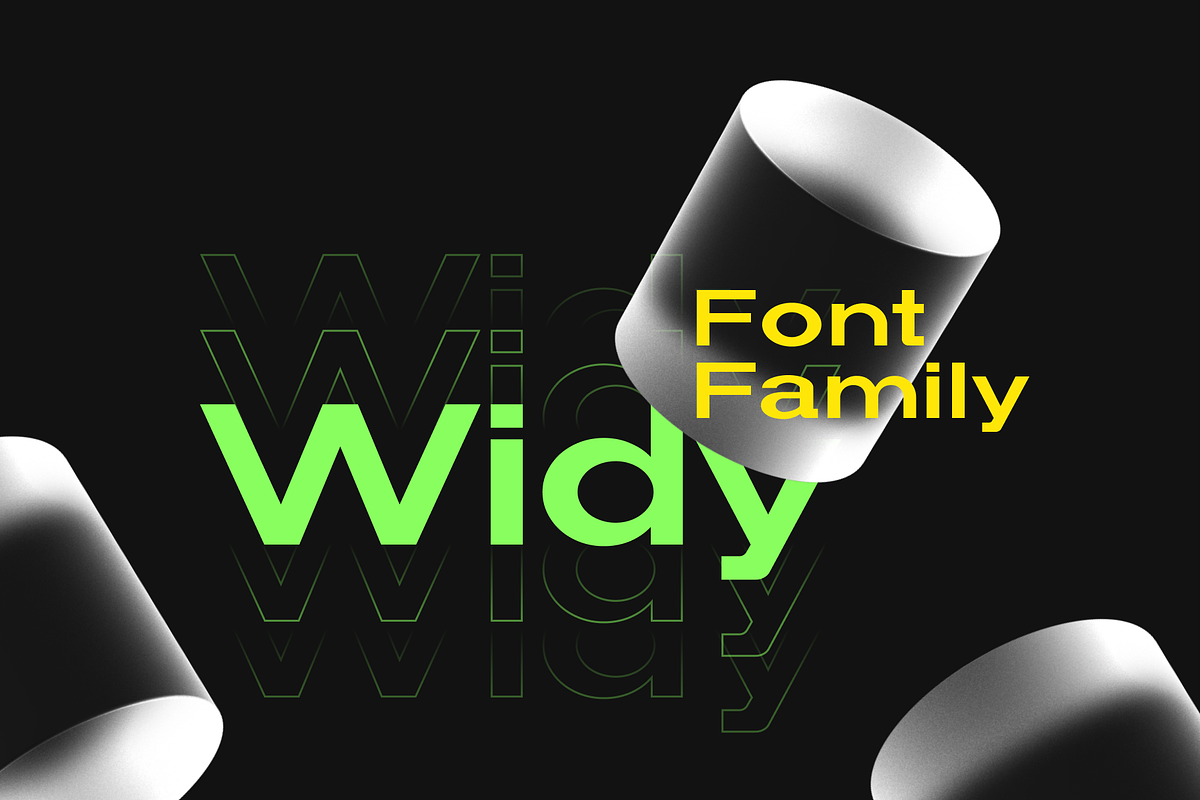
Widy Font Family Free Download
The Widy Font Family Free Download is a versatile and modern font collection, designed to bring both elegance and readability to your projects. With a wide range of weights and styles, this font family is perfect for branding, editorial designs, websites, and more. Its clean lines and balanced structure ensure that your typography remains legible while making a strong visual impact. Please note that for commercial use, a license purchase is required. However, you can easily download the Widy Font Family Free Download for free for personal use and explore its diverse possibilities. Whether you’re designing for digital or print media, the Widy Font Family Free Download offers everything you need to create professional, high-quality designs. Download the Widy Font Family Free Download today and give your projects a fresh, contemporary look.